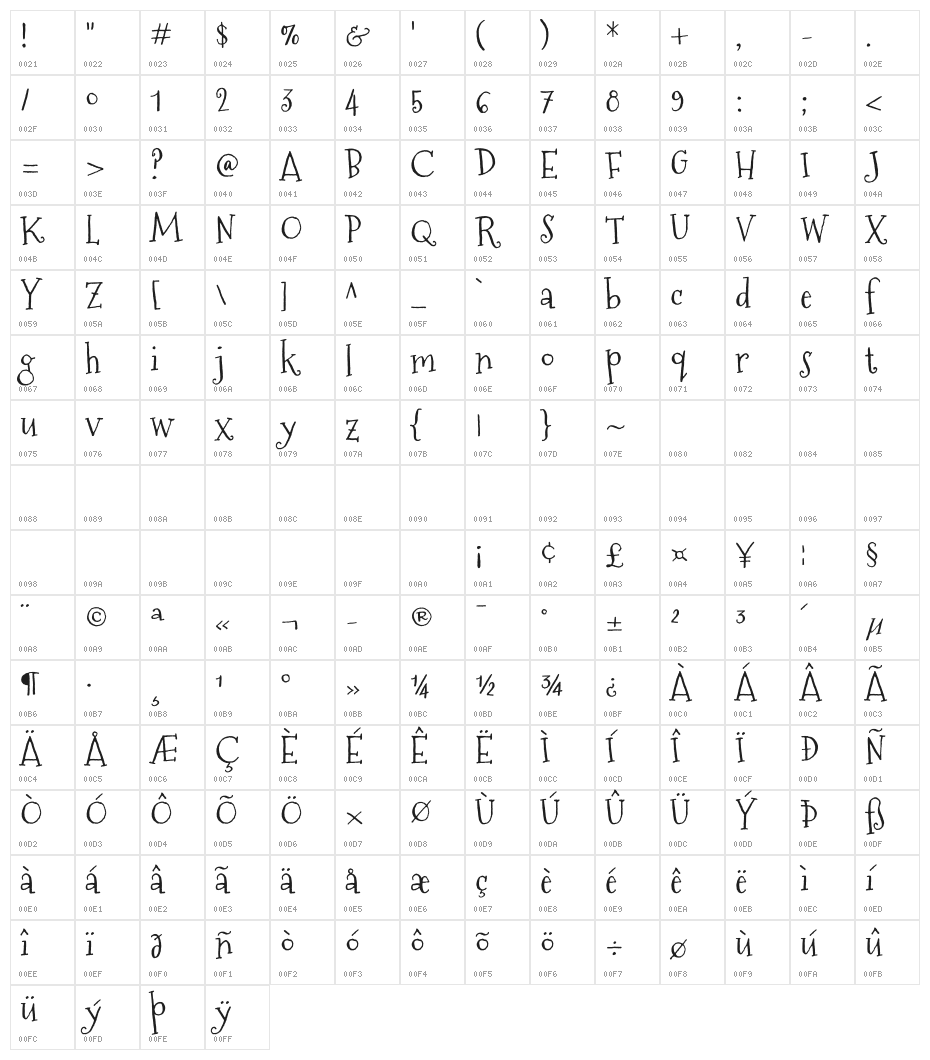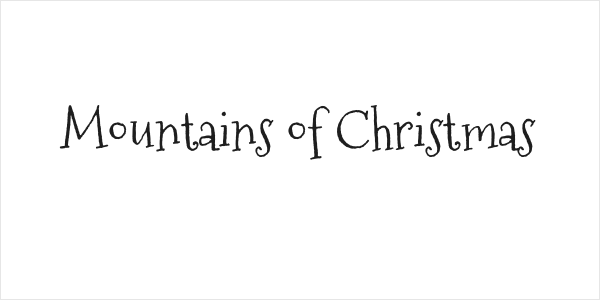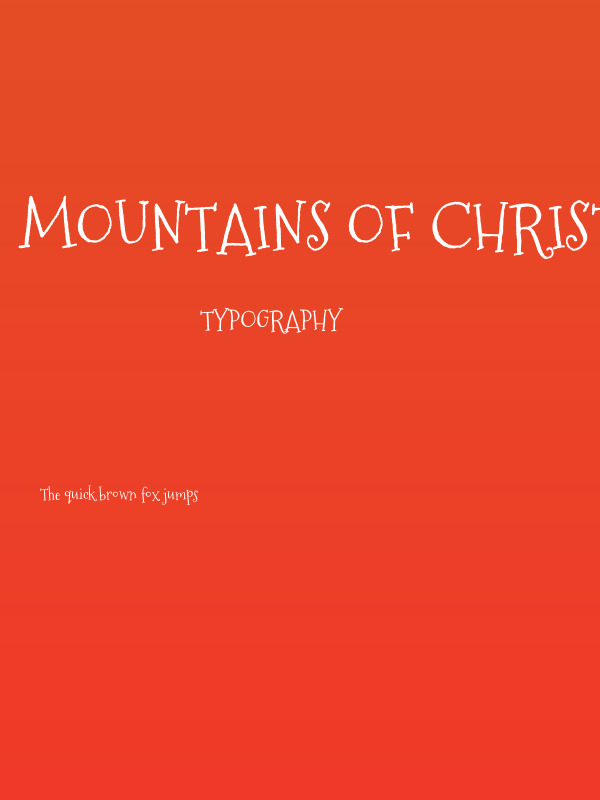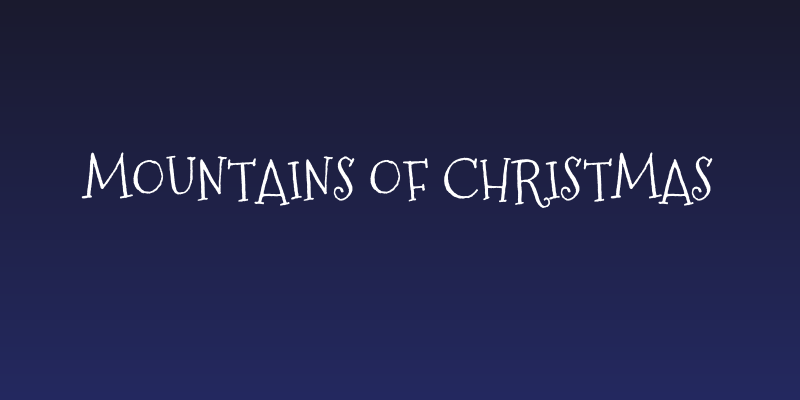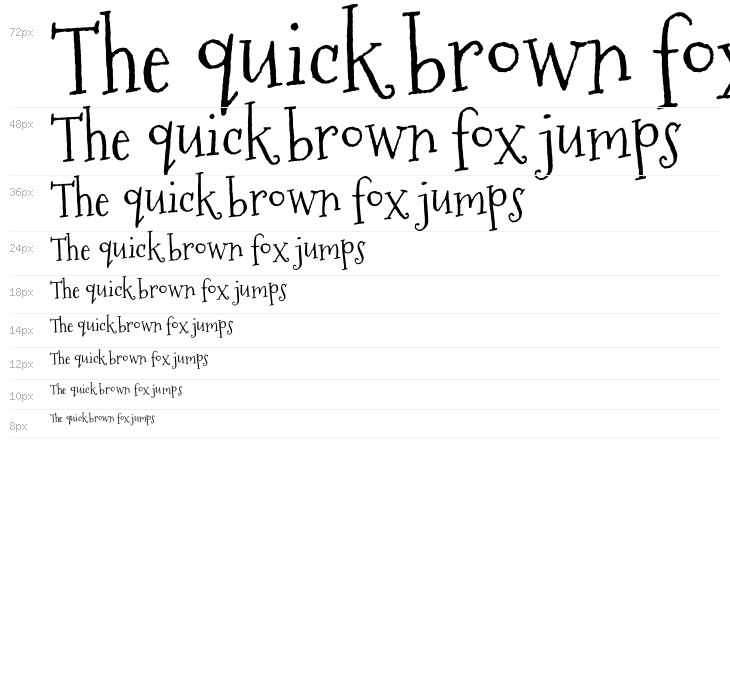
Mountains of Christmas Font
Mountains of Christmas Description
This font exudes a playful and whimsical charm, characterized by its irregular, hand-drawn appearance. The letters have a slightly uneven baseline, adding to the casual and friendly feel. The strokes are varied, with some letters featuring loops and curls that enhance its quirky personality. The overall design is reminiscent of a child's handwriting, making it ideal for projects that require a touch of innocence and fun. The numbers and special characters maintain the same playful style, ensuring consistency across all text elements.
| Overall Style | Whimsical |
| Proposed Projects | Ideal for children's books, greeting cards, playful branding, and festive invitations. |